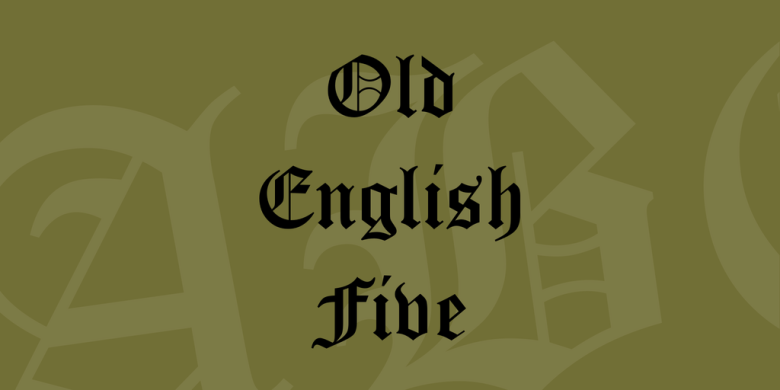
Old English Five Font
Old English Five Font is a blackletter font that features a creatively designed structure. The free version comes with all uppercase and lowercase letters and a couple of special characters as well.